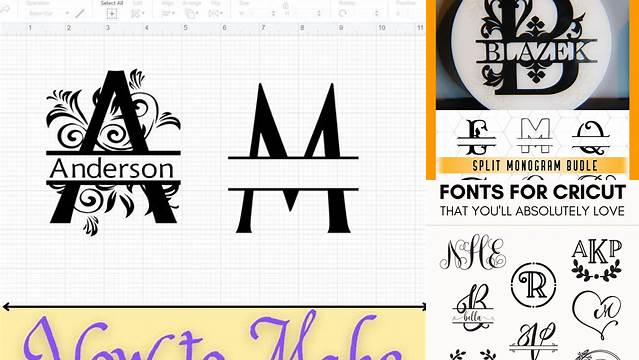
Top Fonts For Split Monogram Cricut Projects
Creating personalized split monograms with your Cricut is an awesome way to add a unique touch to gifts, home decor, and more. But guys, choosing the best font for your project can make or break the final result. Let's dive into the world of fonts and figure out which ones will make your split monograms shine!
What is a Split Monogram?
Before we jump into fonts, let's quickly define what a split monogram actually is. A split monogram features a large letter, typically the initial of a name, that is 'split' into two parts, usually horizontally. The space created by the split is then filled with a name, word, or design. This creates a visually appealing and personalized design element that looks super classy on all sorts of projects.
Why Font Choice Matters
The font you select plays a crucial role in the overall look and feel of your split monogram. A font that's too thin might be difficult to weed, while a font that's too ornate might clutter the design and make it hard to read. The best font will be both visually appealing and easy to work with on your Cricut machine.
1. Classic Serif Fonts for Split Monograms
Serif fonts, with their little decorative strokes (serifs) at the ends of the letters, are often a great choice for split monograms. They evoke a sense of tradition and elegance. When using serif fonts for split monograms, consider the weight and spacing of the letters. A font that is too heavy might not leave enough room for the personalized text in the split, while a font with too much spacing might look disjointed.
Examples of classic serif fonts include Times New Roman (though maybe a little too classic!), Garamond, and Georgia. Experiment with different sizes and weights to find the perfect balance for your project.
2. Modern Sans-Serif Fonts for Cricut
Sans-serif fonts, which lack the serifs, offer a more modern and minimalist aesthetic. These fonts are clean, simple, and easy to read, making them an excellent choice for contemporary split monogram designs. When choosing a sans-serif font, make sure it has enough visual interest to stand out, but isn't so overly stylized that it clashes with the split design.
Popular sans-serif options include Arial, Helvetica, and Montserrat. These fonts are versatile and work well with a variety of design styles.
3. Script Fonts for Elegant Monograms
Script fonts, mimicking handwriting, can add a touch of elegance and sophistication to your split monograms. However, they can also be tricky to work with, especially when weeding intricate details. Choose script fonts carefully, opting for those with thicker lines and fewer embellishments. It's a bit of trial and error, ya know?
Some lovely script fonts include Brush Script, Edwardian Script, and Samantha Script. Always test cut a small sample of your script font before committing to a large project to ensure it weeds cleanly.
4. Bold Fonts for a Strong Statement
Using bold fonts can make a powerful statement with your split monogram. Bold fonts are especially effective when you want the initial to really stand out. However, avoid fonts that are overly thick, as they can fill in the split area and make it difficult to read the personalized text.
Consider using Impact, Bebas Neue, or Montserrat Bold. These fonts have a strong presence without being too overwhelming.
5. Distressed Fonts for a Rustic Look
For a more rustic or vintage vibe, consider using distressed fonts. These fonts have a slightly worn or weathered appearance, adding character and charm to your split monogram. Be mindful of the level of distressing; too much can make the design look messy or difficult to weed.
Check out fonts like Amatic SC, Rockwood, or a custom distressed font from online marketplaces.
6. Monogram Fonts
These fonts are especially made for monograms and offer a unique style. They are usually connected in a way that makes them flow and look very elegant. They are usually connected in a way that makes them flow and look very elegant. These fonts are designed specifically for monograms and often feature interlocking letters or unique embellishments. They can add a touch of sophistication and personalization to your projects. When using monogram fonts, make sure the letters are legible and the design is well-balanced. Some popular monogram fonts include Interlock, Circle Monogram, and Elegant Monogram. Experiment with different styles and sizes to find the perfect fit for your project. Ensure the font complements the overall aesthetic and enhances the personalized touch you're aiming for. Whether for gifts, home décor, or personal items, monogram fonts can elevate the design and create a lasting impression.
7. Display Fonts
Display fonts are designed to catch the eye and make a statement. They come in a variety of styles, from bold and modern to whimsical and decorative. While they can be great for adding personality to your split monogram, use them sparingly and ensure they don't overwhelm the design. Choose a display font that complements the overall theme of your project and enhances the visual appeal. When using display fonts, consider the legibility and ensure the letters are easy to read, especially in smaller sizes. Also, pay attention to the kerning and spacing to ensure a balanced and harmonious look. Experiment with different display fonts to find the perfect one that captures the essence of your design and makes it stand out. Whether for banners, posters, or personalized gifts, display fonts can add a unique and creative touch to your projects.
8. Handwritten Fonts
Handwritten fonts mimic the look of natural handwriting, adding a personal and informal touch to your split monogram. They can be great for creating a warm and inviting feel, especially for projects that aim to convey authenticity and individuality. When choosing a handwritten font, consider the readability and ensure the letters are clear and easy to understand. Avoid fonts that are too messy or illegible, as they can detract from the overall design. Also, pay attention to the spacing and kerning to ensure a balanced and harmonious look. Experiment with different handwritten fonts to find the perfect one that captures the essence of your message and adds a personal touch to your project. Whether for cards, invitations, or home décor, handwritten fonts can make your designs feel more personal and heartfelt.
So there you have it! Choosing the best font for your split monogram Cricut projects doesn't have to be a headache. With a little knowledge and experimentation, you'll be creating personalized masterpieces in no time. Happy crafting, folks!